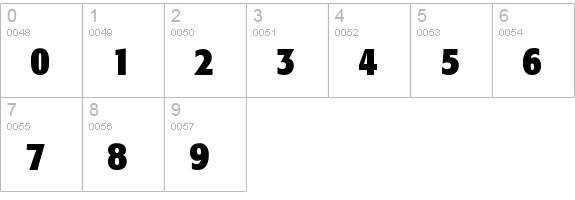
Formata Bold Condensed Font Details
Formata Bold Condensed is a strong, high-contrast, condensed-width variant in the Formata typeface family \xE2\x80\x94 well suited to headlines, attention-grabbing titles, and strong calls-to-action.